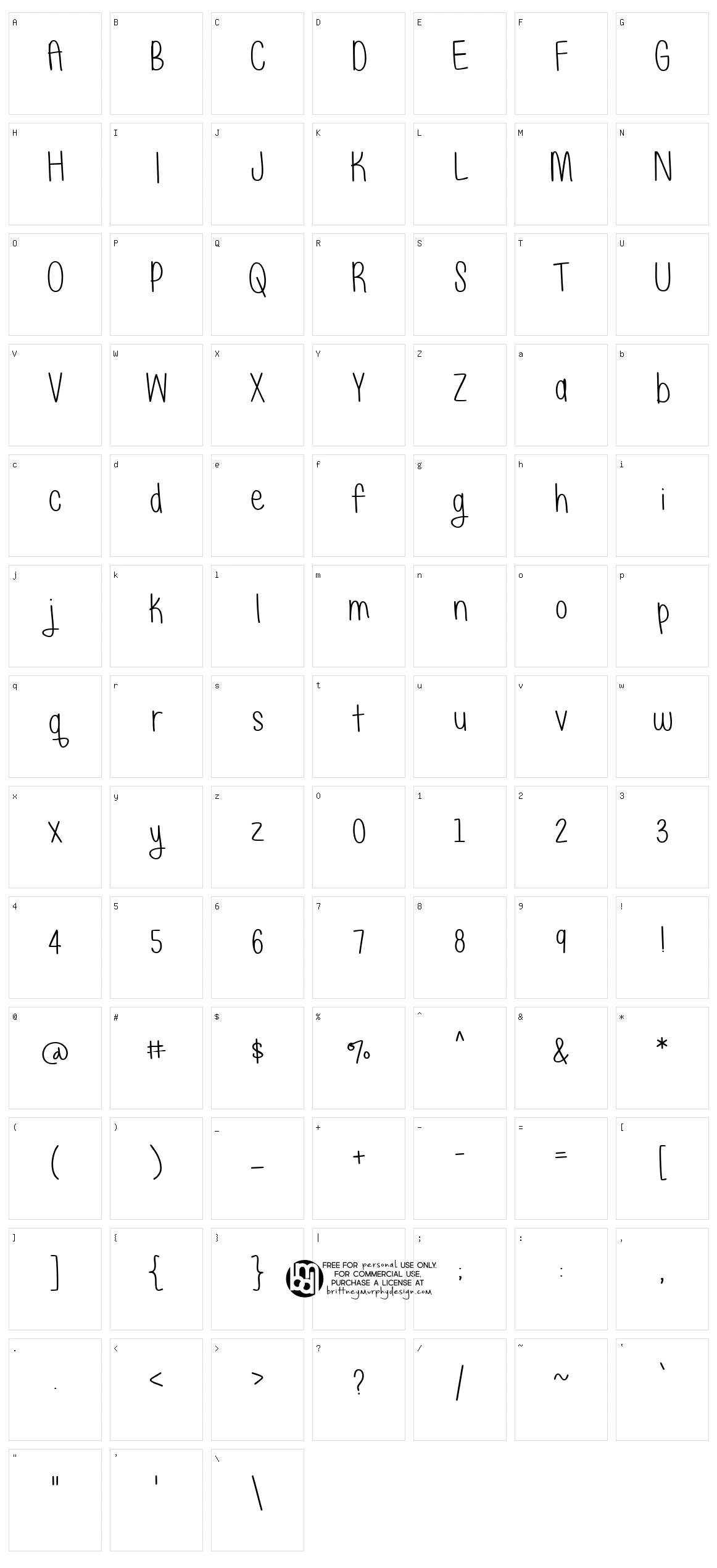
The free font Just Alice is carefully designed by Brittney Murphy Design, showcasing a thoughtful balance of creativity and usability and falls under the Script font style. When you download the ZIP file, it contains only 175.35 KB of font files, making it lightweight and quick to download. Please review the license details below to understand permitted usage and distribution rights. If license information is not available, we recommend using this font for personal projects only or contacting the author directly for commercial usage permissions.